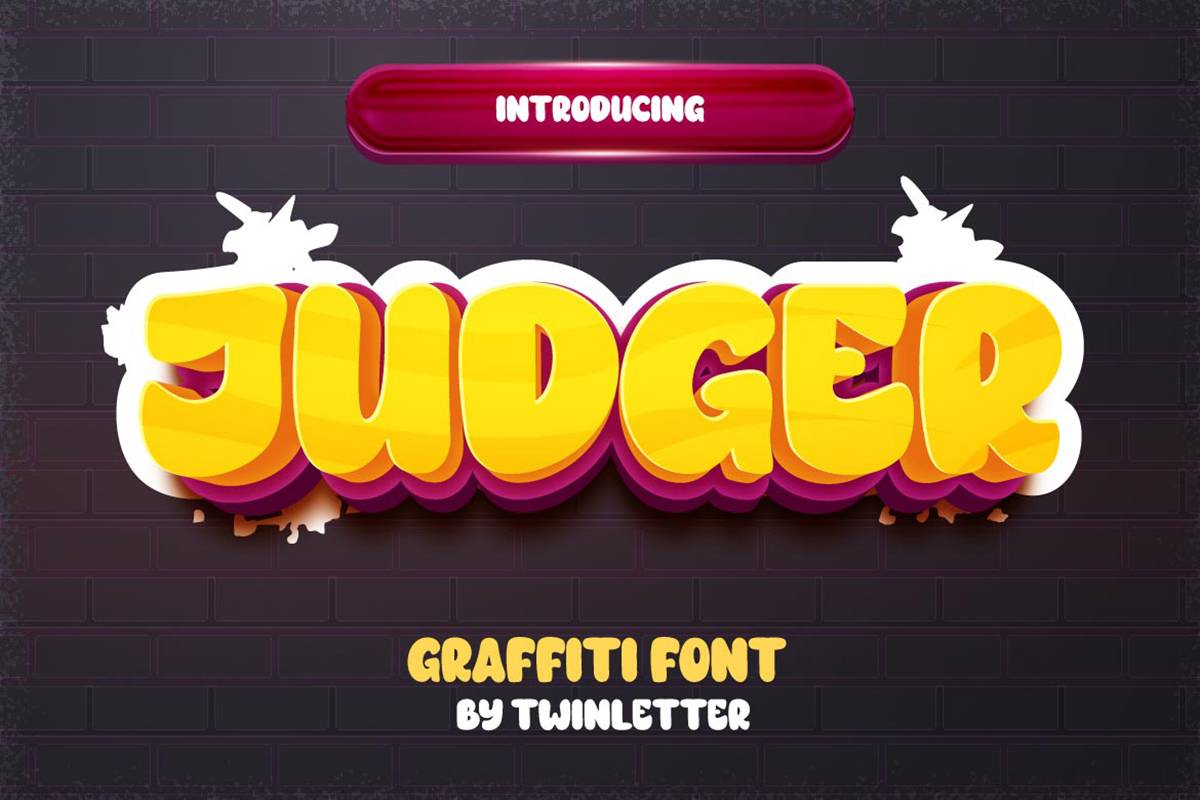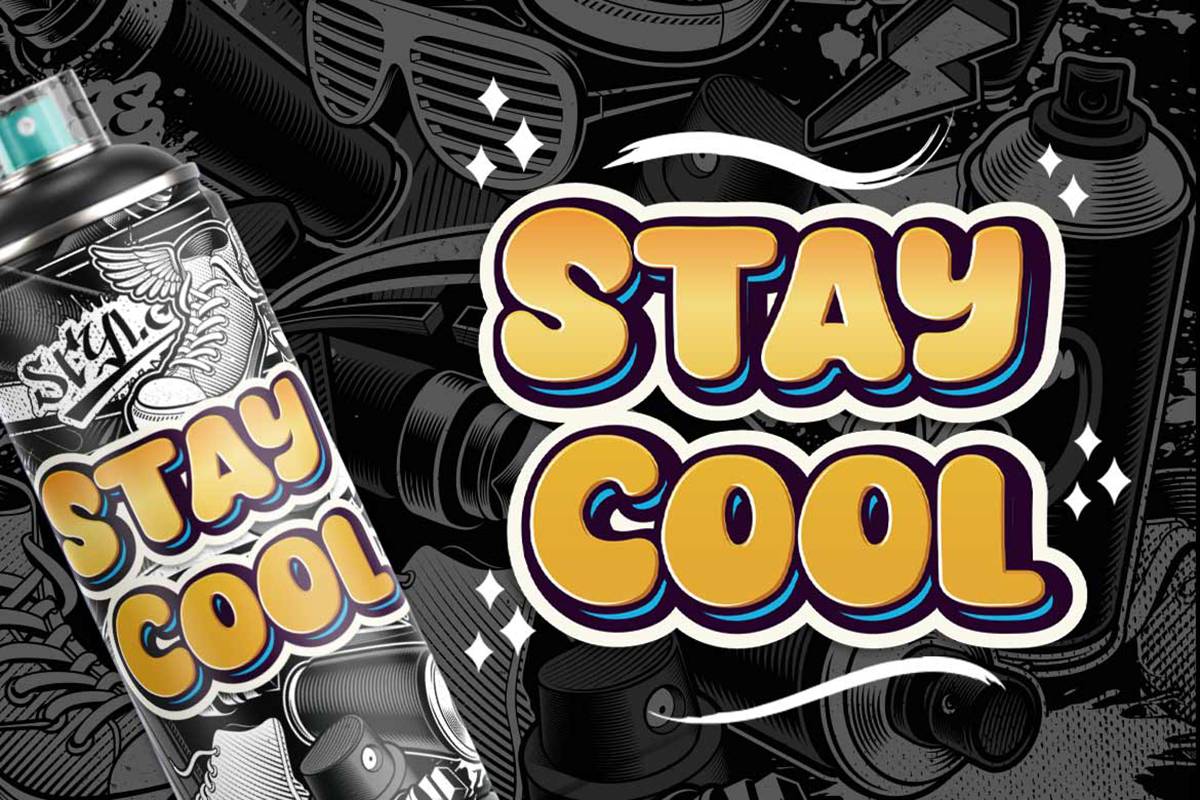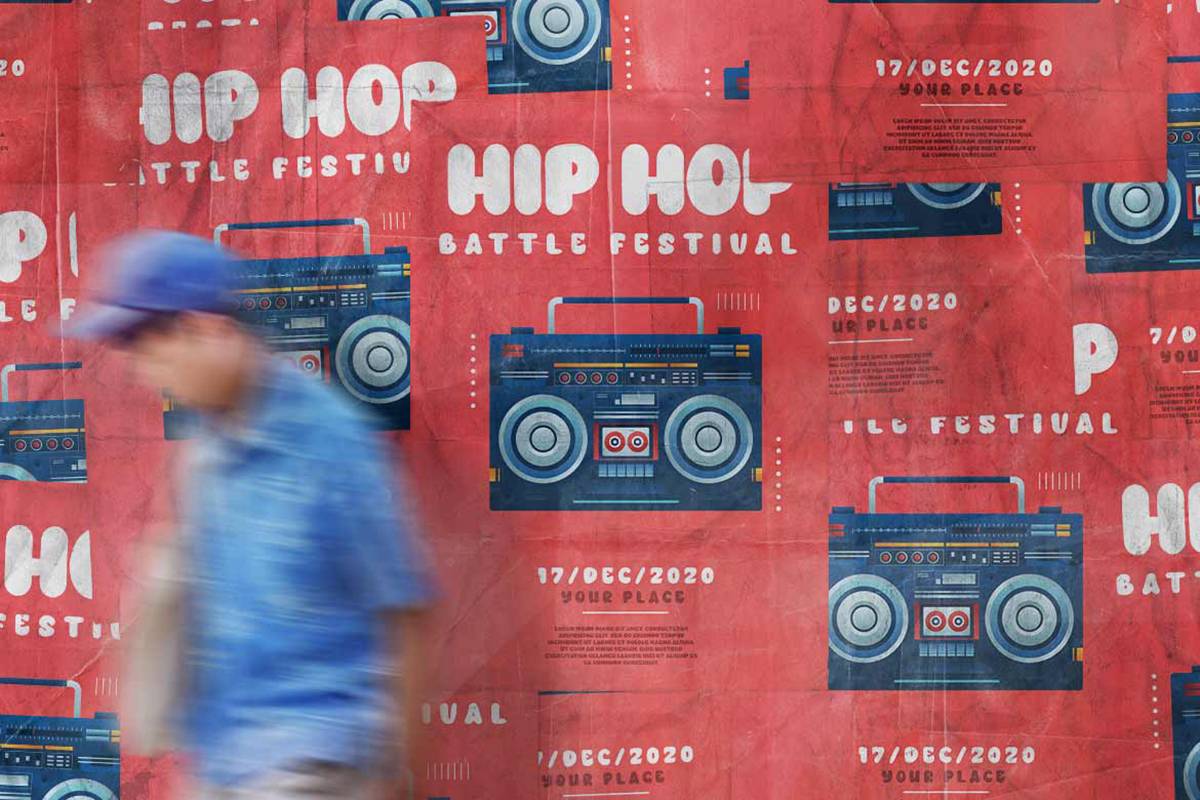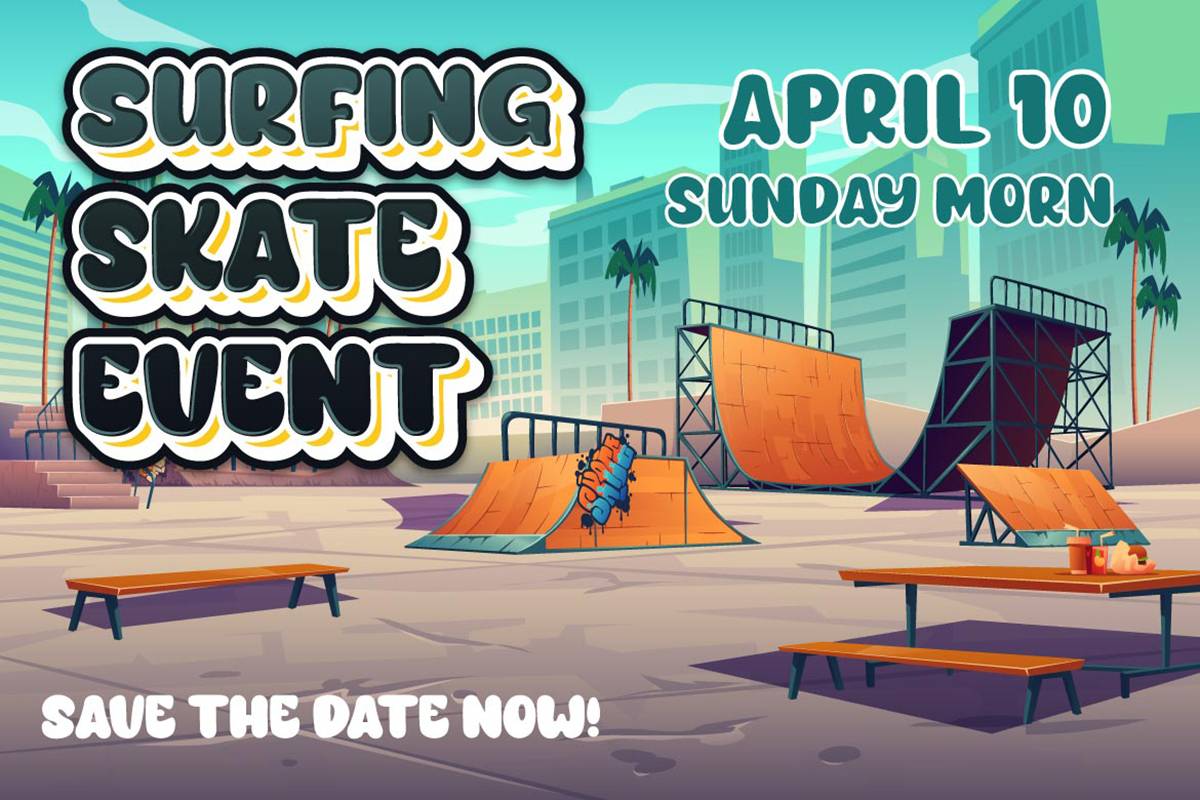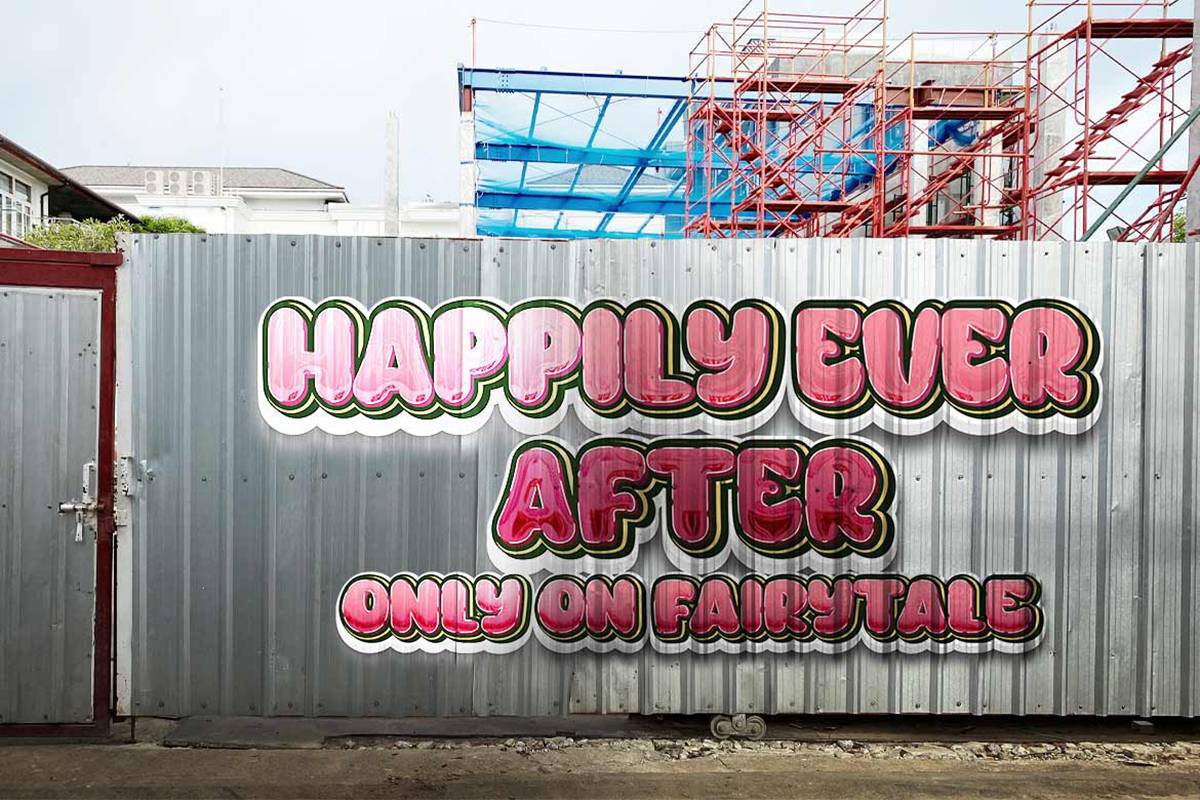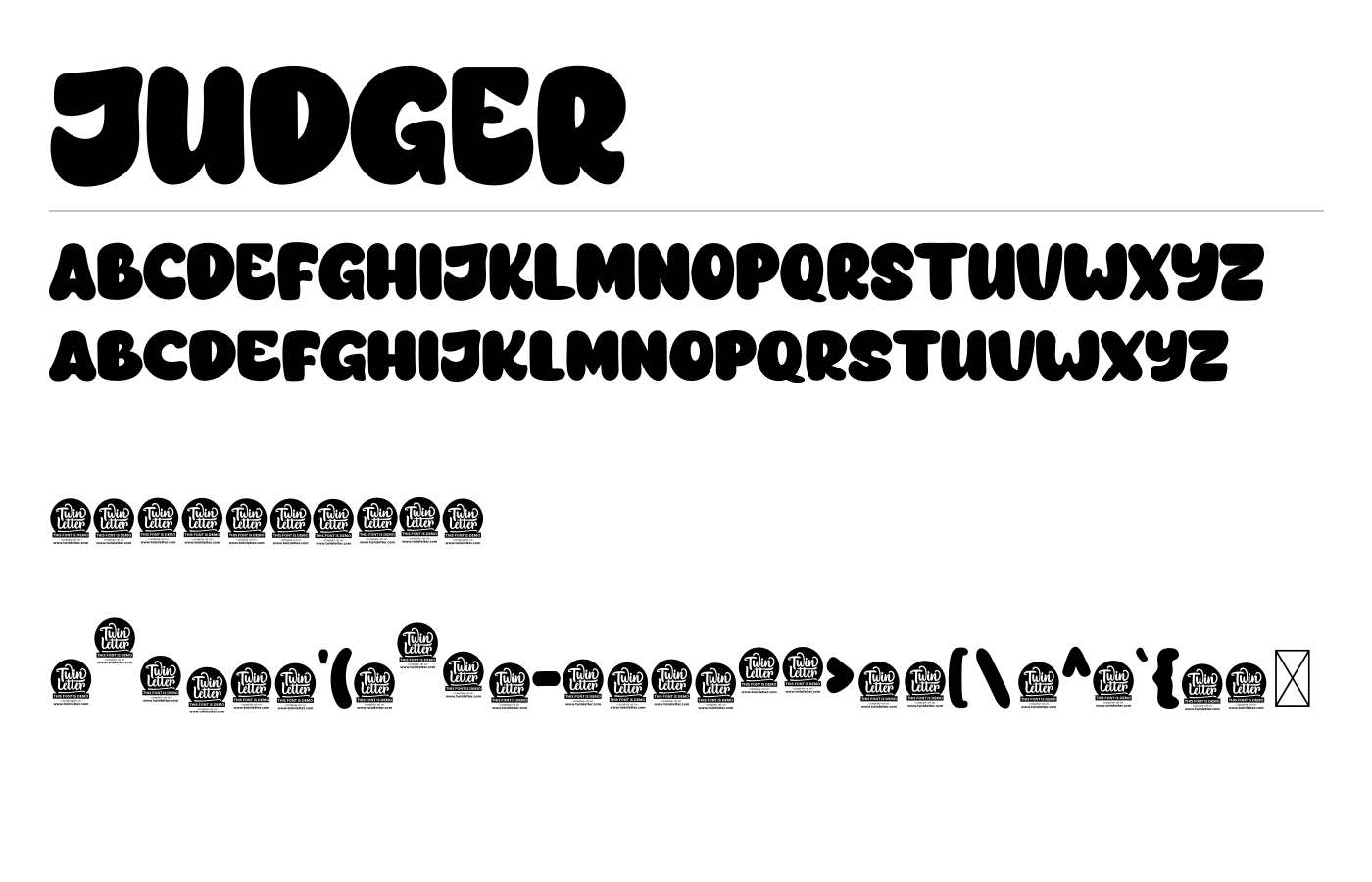
Judger is a bold, rounded sans serif font with a playful and friendly character, featuring thick strokes and a compact, slightly condensed width. Its soft, almost bubble-like letterforms make it ideal for fun, casual designs such as children’s books, posters, or branding that seeks a warm, approachable feel. This font stands out in headlines and display settings where a strong, inviting personality is desired.
Judger Font
About Judger Font